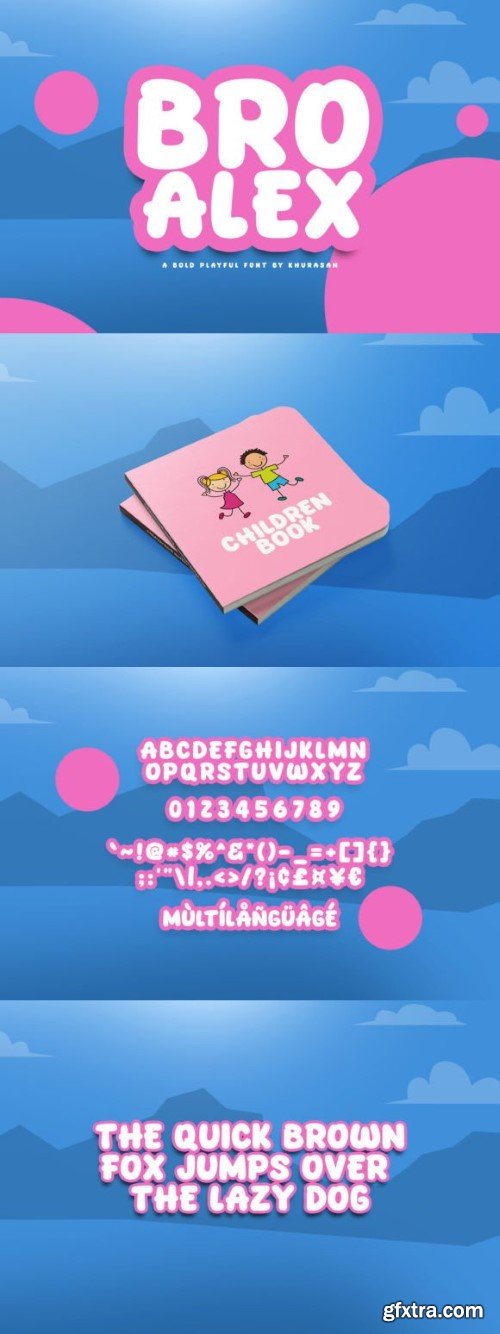
鲍华尔Alex Font
Bro Alex is a modern and fancy display font perfect for posters, logos, magazines, book covers, banners, and many more! Get this amazing font, and use it to create lovely designs. It can easily be matched to an incredibly large set of projects, so add it to your creative ideas and notice how it makes them stand out!